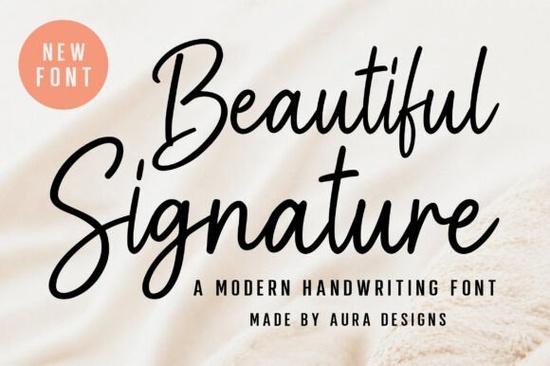
When you are working on a new project, finding the right typeface often feels like trying on clothes for the first time it either fits perfectly or it feels awkward. That is why designers and crafters need a tool that balances elegance with usability. If you have been searching for something that brings a personal touch to your work without looking messy, Beautiful Signature Font is a strong contender for your library. This modern handwritten script offers an elegant and stylish look that works well across various mediums.
The core strength of this typeface lies in its versatility. Whether you are creating a logo for a boutique shop or putting together wedding invitations, the letterforms are crafted to mimic natural handwriting while remaining legible. It is important to remember that not all script fonts are created equal. Some are too thin to print clearly, while others are too heavy for delicate paper. Beautiful Signature strikes a balance that makes it a reliable choice for professional output.
Where does this script work best?
The applications for this font span many different creative industries. Print-on-demand sellers often look for text that reads well on t-shirts and mugs. Since the font includes both uppercase and lowercase characters, you can create balanced compositions that draw the eye to specific words. A single signature-style word often sells better on apparel than long blocks of text.
Beyond merch, branding is a huge area where this style shines. Small business owners frequently want their signage to feel friendly yet established. Using this script for a primary logo element can soften the image of the company while maintaining authority. Quotes and social media graphics also benefit from the stylistic flair. When users scroll through Instagram or Pinterest, visuals that feature distinct typography stand out more effectively than standard sans-serif layouts.
What characters are available in the package?
One of the most common frustrations when downloading fonts is realizing that special symbols are missing. Fortunately, the package for Beautiful Signature Font is quite robust. It includes the full uppercase and lowercase alphabets, ensuring you can write proper grammatical sentences rather than just shouting everything in capitals. Numbers are also present, which is essential if you need to display pricing or dates on your design.
How does it compare to other script styles?
Is the file easy to work with?
Technical compatibility is often overlooked until installation day. Most commercial fonts are delivered as TrueType (TTF) files, which work seamlessly with most design software like Adobe Illustrator, Photoshop, and Affinity Designer. The vector shapes usually cut cleanly in Cricut or Silhouette machines, making them ideal for vinyl cutting and decals. If you are setting up your machine settings, ensure you adjust the line spacing to prevent characters from clipping into one another.
To find this exact file on the marketplace, you can view the current listings for Beautiful Signature Font. This ensures you download the correct version and support the creator directly. Always verify that you are downloading from a trusted source to avoid corrupted files that can crash your rendering engine.